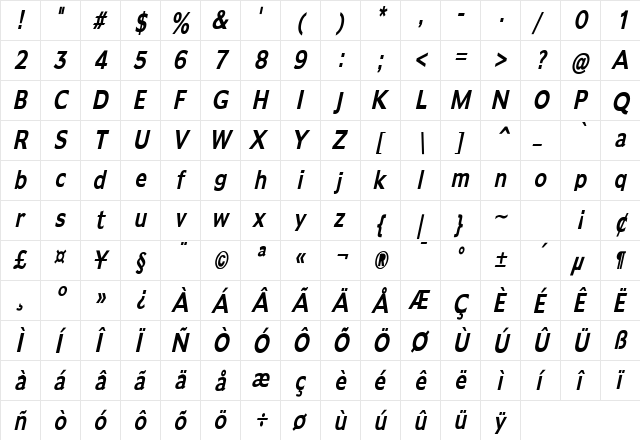
Adams Thin Bold Italic Font Preview
Design Context for Adams Thin Typeface
Adams Thin takes a measured approach to typography — its balanced proportions and neutral character make it a reliable workhorse for both digital and print work. The slanted form adds forward momentum and visual energy. The heavy weight commands attention and anchors typographic hierarchies.